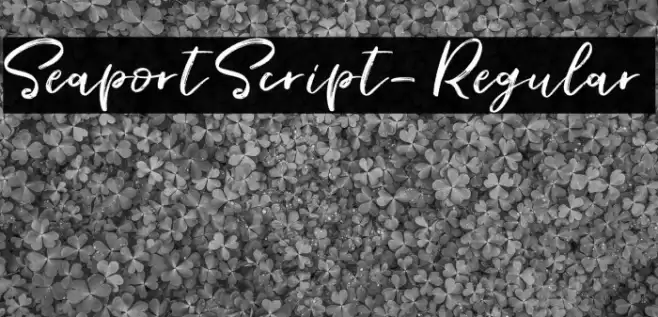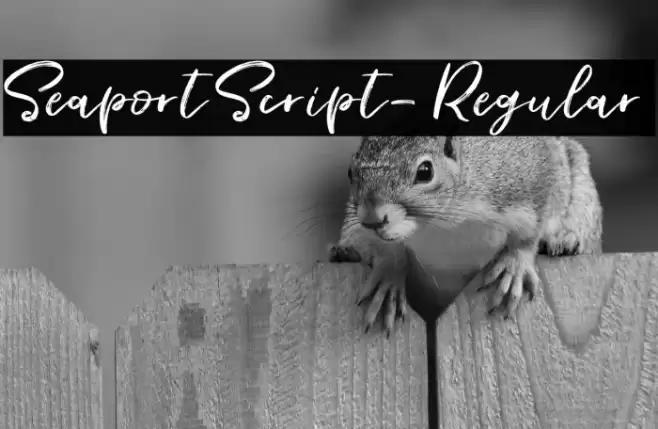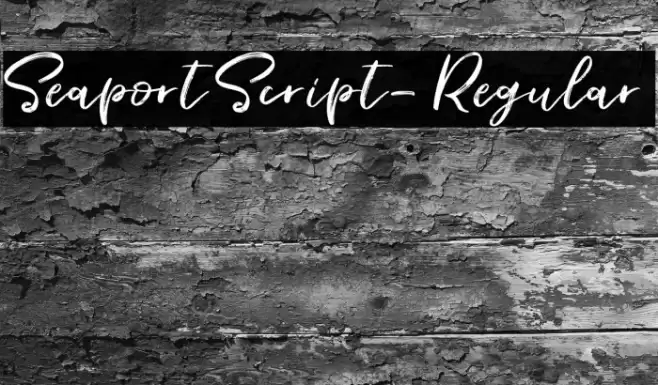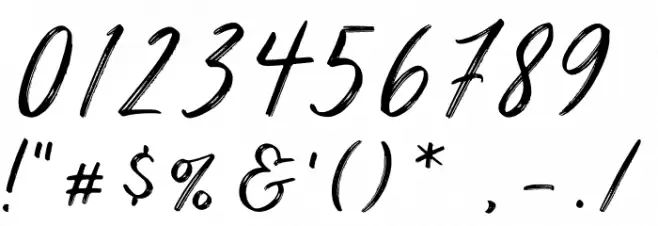
SeaportScript-Regular Font
SeaportScript-Regular Description
This font exudes a dynamic and expressive style, characterized by its fluid, handwritten appearance. The strokes are bold and energetic, with a natural flow that mimics the movement of a brush or pen. Each letter is distinct yet harmoniously connected, creating a cohesive look that is both artistic and legible. The uppercase letters are slightly more structured, while the lowercase letters maintain a casual elegance. Numbers and special characters follow the same lively style, adding versatility to the font. The overall impression is one of creativity and spontaneity, making it suitable for projects that require a personal touch.
A dynamic, handwritten font with bold, fluid strokes and a creative flair from Script fonts.
- ( Introduction of Seaport Font here is another gorgeous and artistical typeface that is known as Seaport font, designed and shared by a great type designer Fontforestry, who is a dominant name in the designing field. It is the first but extremely Wonderful. FREE )
- Proposed Projects: Ideal for branding, invitations, greeting cards, and creative projects that require a personal, artistic touch.
- Use Case: Logos, Headlines, Invitations